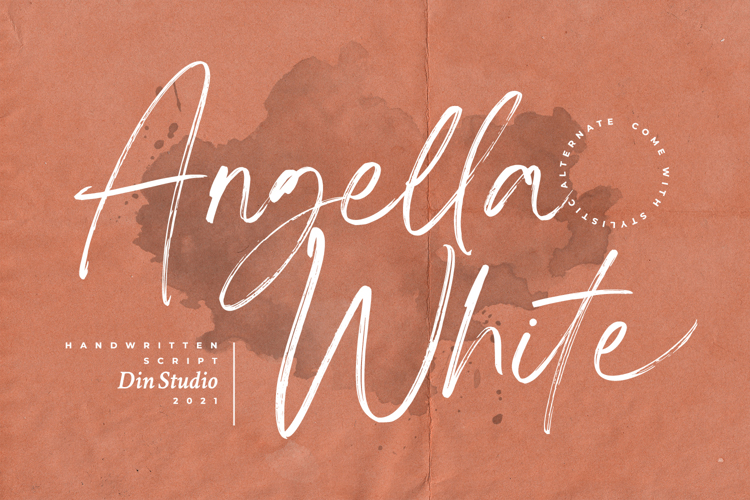
Angella White font
Angella White, a beautifully handcrafted font with a brush style that will delight your guests and elevate your projects! Every stroke and curve were designed to convey happiness and elegance. Use it to make eye-catching headlines, promote your online sales, create Instagram quotes, and even print materials such as business cards, t-shirts, and invitations.
Features includes:
• Standard Ligatures
• Stylistic Sets
• Multilingual Support
• PUA Encoded
• Numerals and Punctuations